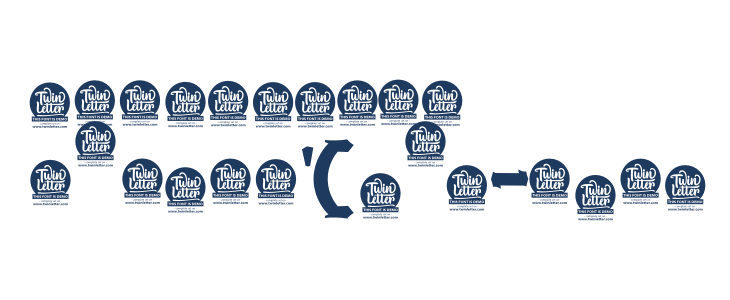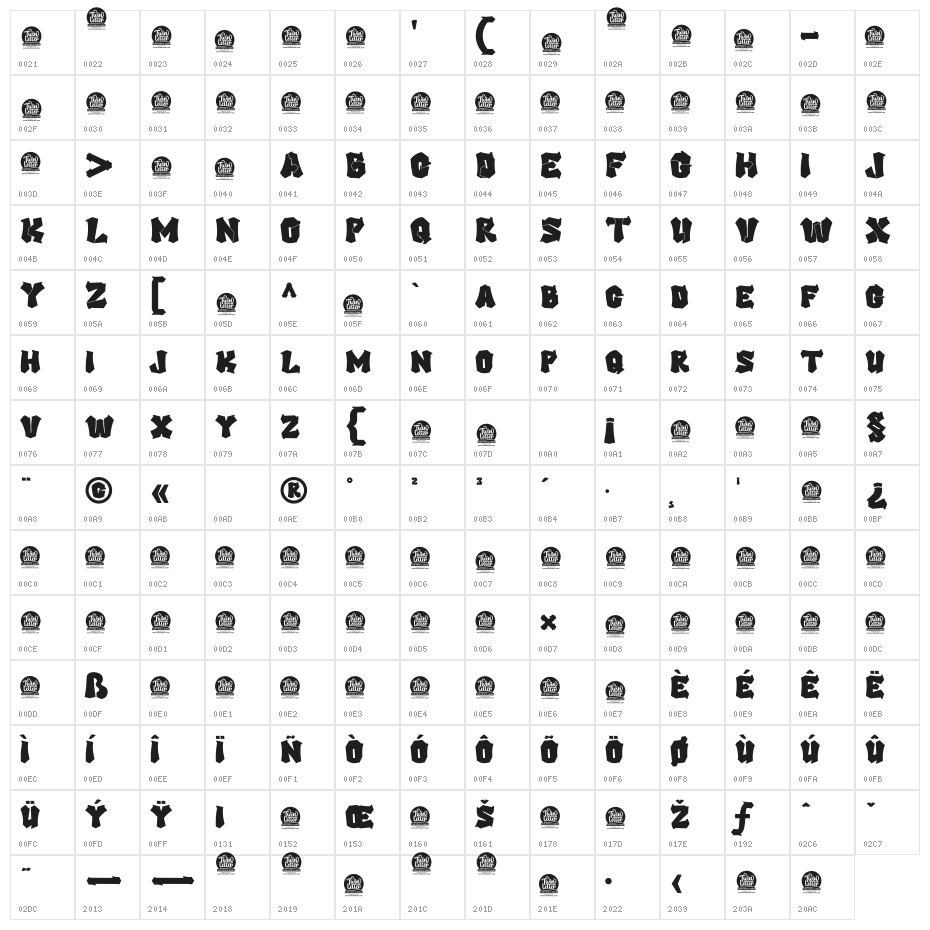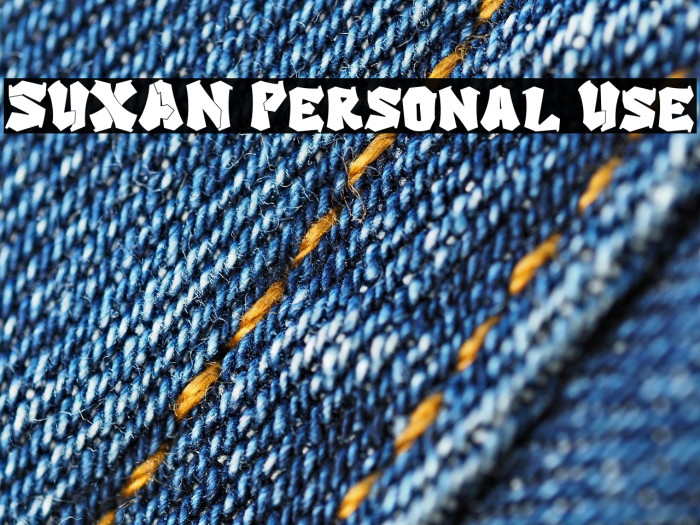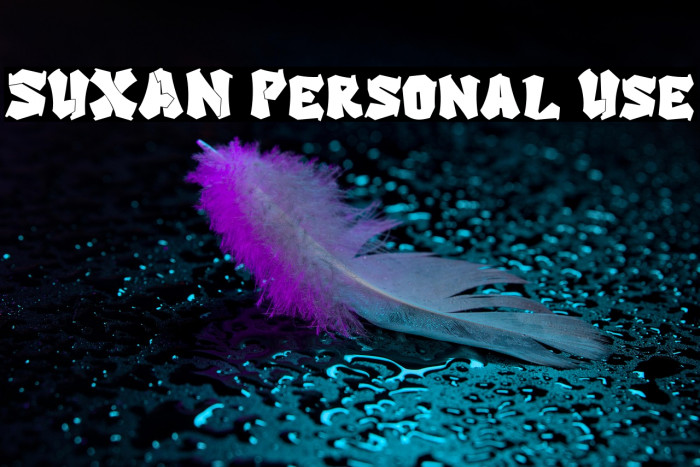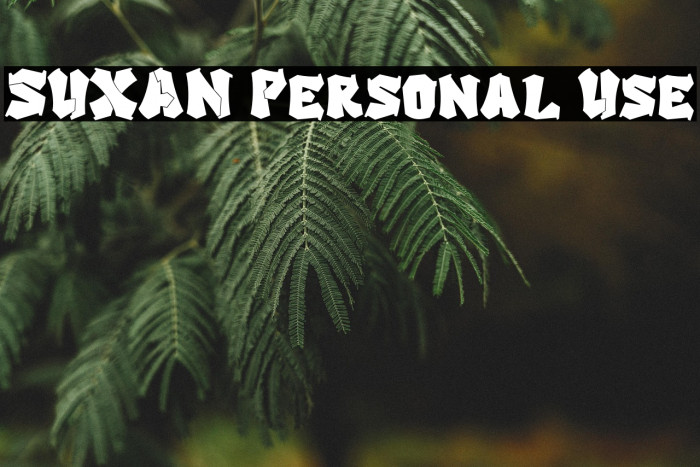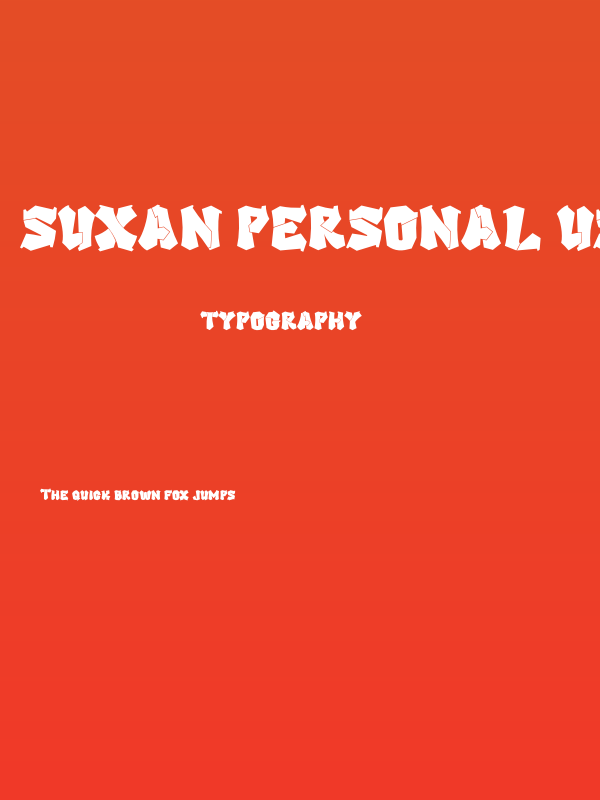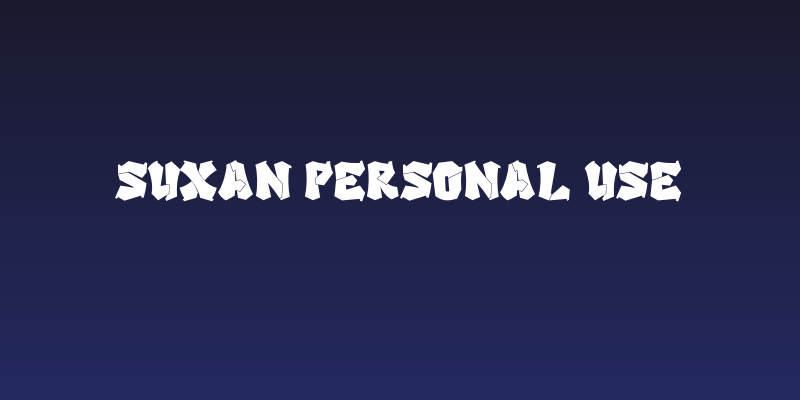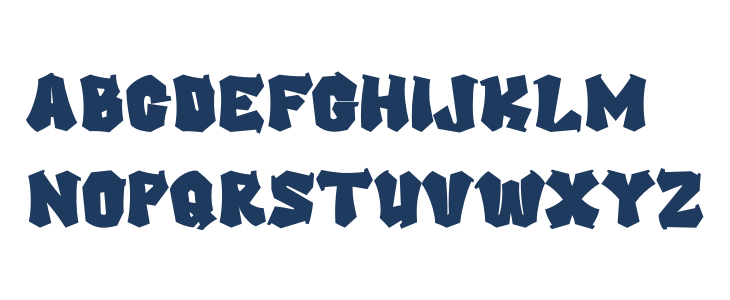
SUXAN Personal Use Font
SUXAN Personal Use Description
This font features a bold and edgy design with sharp, angular cuts and a strong presence. The uppercase letters are particularly striking, with a geometric style that gives them a modern and aggressive look. The characters are tightly spaced, enhancing the compact and powerful aesthetic. The font's unique style makes it stand out, with a high contrast between the thick and thin strokes, adding to its dynamic appearance. It is well-suited for projects that require a bold statement or a contemporary, urban feel.
| Proposed Projects | Ideal for branding, posters, album covers, and any project needing a bold, modern look. |